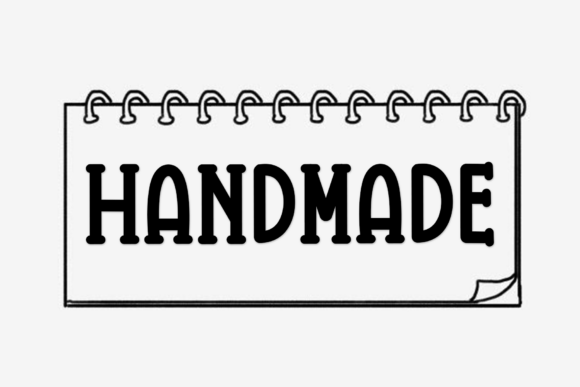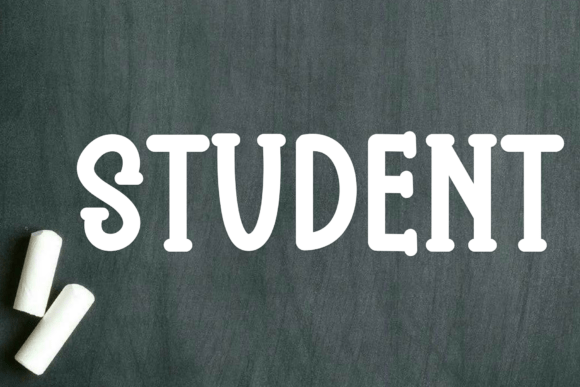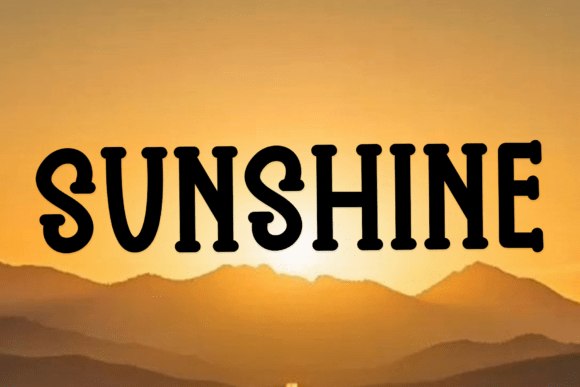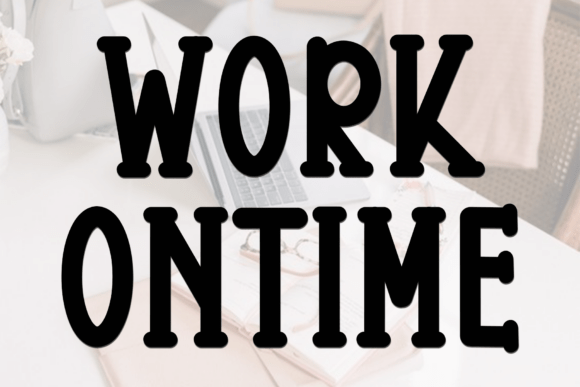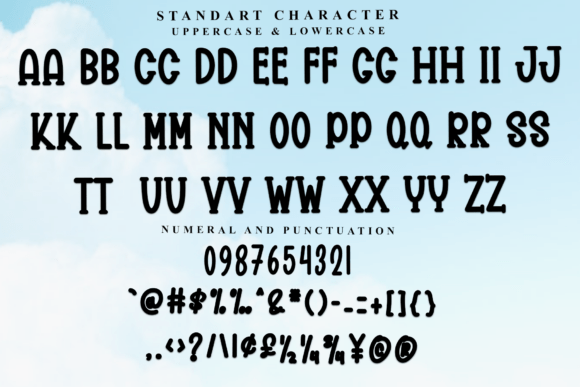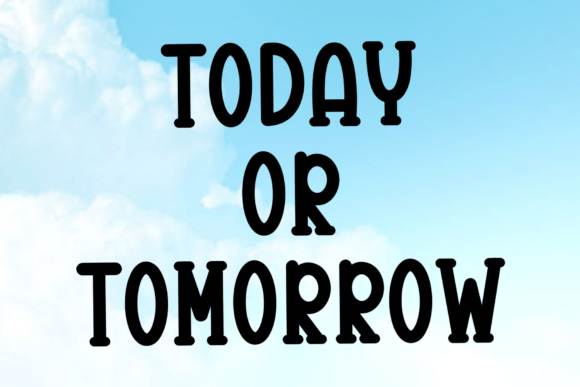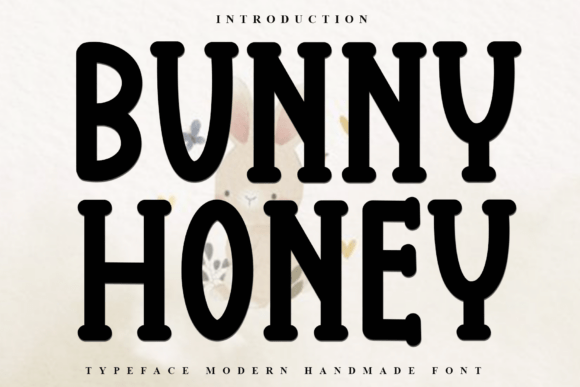
Bunny Honey Font: The Ultimate Guide to a Charming and Creative Typeface
Are you a designer or crafter looking for a font that exudes warmth and friendliness? Look no further than the Bunny Honey Font! This casual and creative typeface is perfect for personal projects, invitations, and social media graphics. In this article, we’ll dive into the features and benefits of the Bunny Honey Font, and explore how it can add a fun and unique touch to your designs.
The Characteristics of Bunny Honey Font
The Bunny Honey Font is a hand-drawn typeface that boasts round, playful strokes that create a relaxed and approachable feel. Its charming aesthetic is perfect for designs that require a personal touch, such as:
- Personal invitations and greeting cards
The font’s casual and creative vibe makes it an excellent choice for designers and crafters who want to add a touch of whimsy and fun to their work.
What Makes Bunny Honey Font Special?
So, what sets the Bunny Honey Font apart from other typefaces? Here are a few features that make it a standout:
- Hand-drawn aesthetic: The font’s hand-drawn design gives it a unique and charming feel that’s perfect for personal and creative projects.
- Playful strokes: The round, playful strokes of the Bunny Honey Font create a relaxed and approachable feel that’s hard to achieve with more formal typefaces.
How to Use Bunny Honey Font in Your Designs
Using the Bunny Honey Font in your designs is easy! Here are a few tips to get you started:
- Pair it with other fonts: The Bunny Honey Font pairs well with other playful and creative typefaces. Try combining it with a sans-serif font for a fun and modern look.
- Experiment with colors: The Bunny Honey Font looks great in a variety of colors, from bright and bold to soft and pastel. Experiment with different color combinations to find the perfect look for your design.
- Add graphics and illustrations: The Bunny Honey Font is perfect for designs that feature graphics and illustrations. Try adding fun and playful illustrations to your design to make it more engaging.
Benefits of Using Bunny Honey Font
So, why should you choose the Bunny Honey Font for your next design project? Here are a few benefits to consider:
- Unique and creative look: The Bunny Honey Font adds a fun and unique touch to any design, making it perfect for designers and crafters who want to stand out.
- Easy to read: Despite its playful aesthetic, the Bunny Honey Font is easy to read and understand, making it perfect for designs that require a clear message.
- Versatile: The Bunny Honey Font can be used in a variety of design applications, from personal projects to commercial designs.
In conclusion, the Bunny Honey Font is a charming and creative typeface that’s perfect for designers and crafters who want to add a touch of warmth and friendliness to their designs. With its round, playful strokes and hand-drawn aesthetic, this font is sure to make your designs stand out. Whether you’re working on a personal project or a commercial design, the Bunny Honey Font is a great choice.